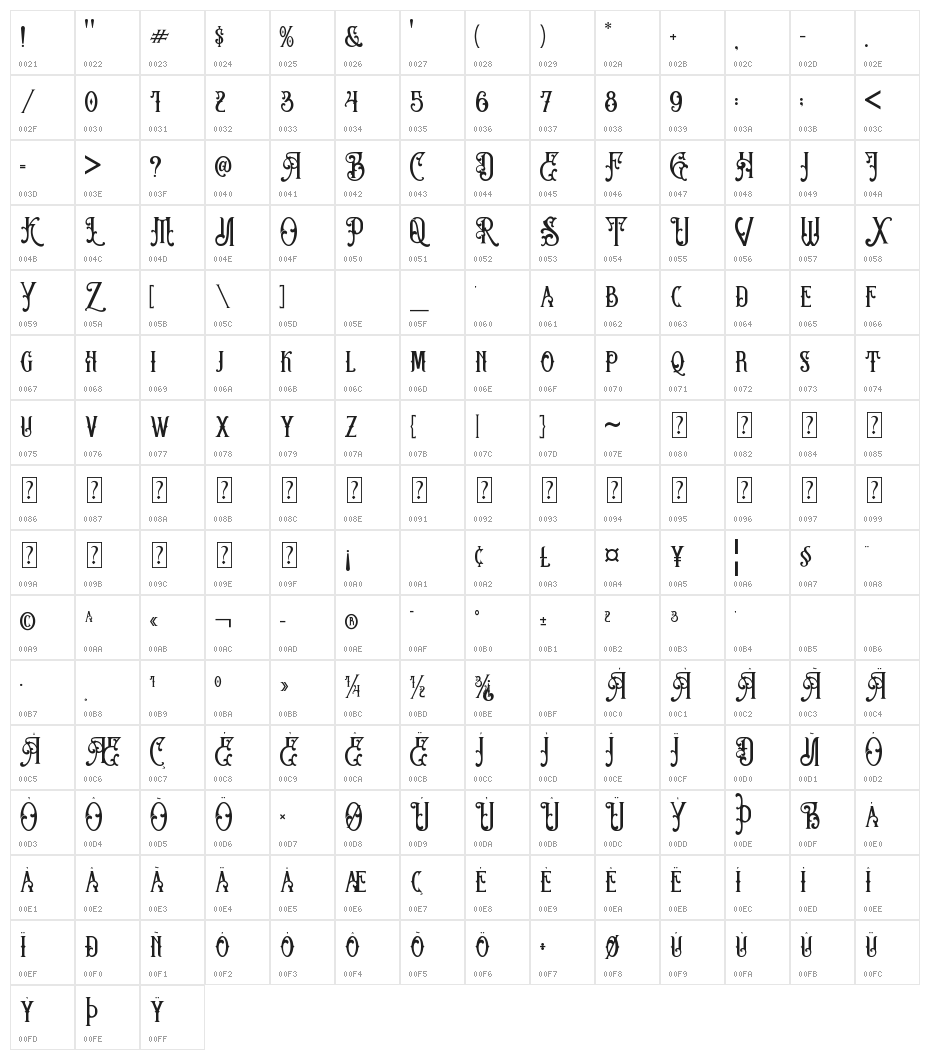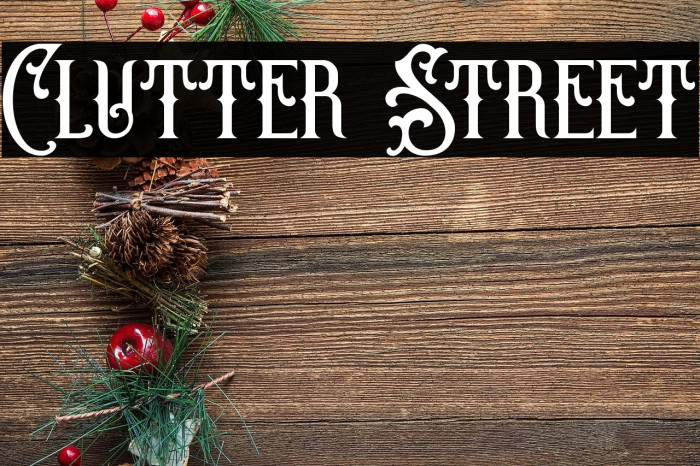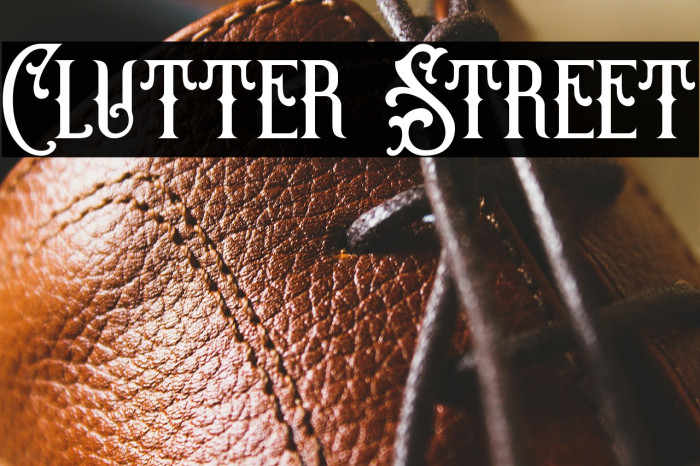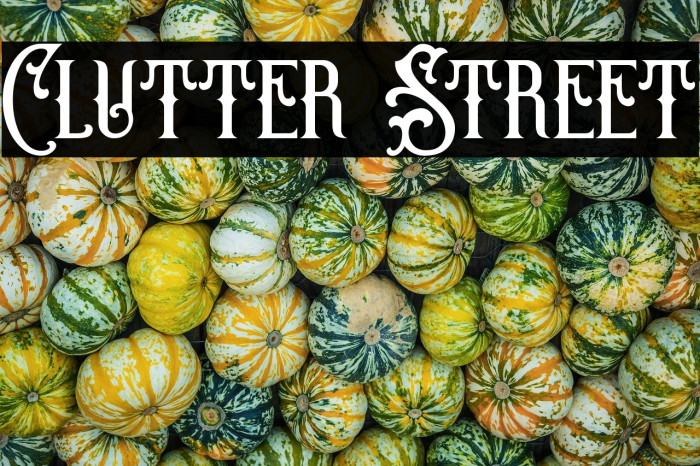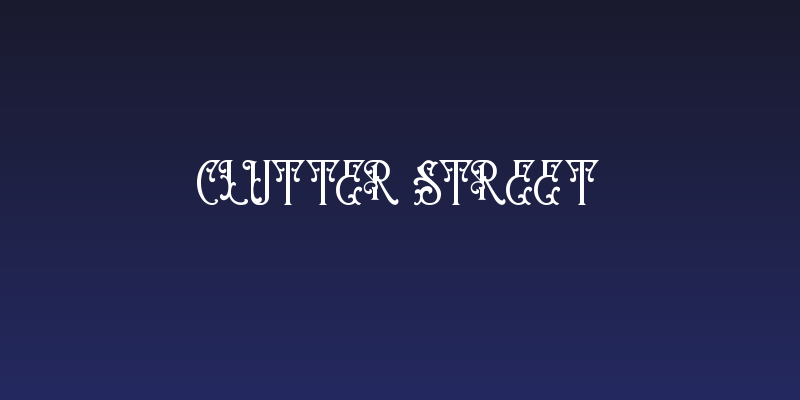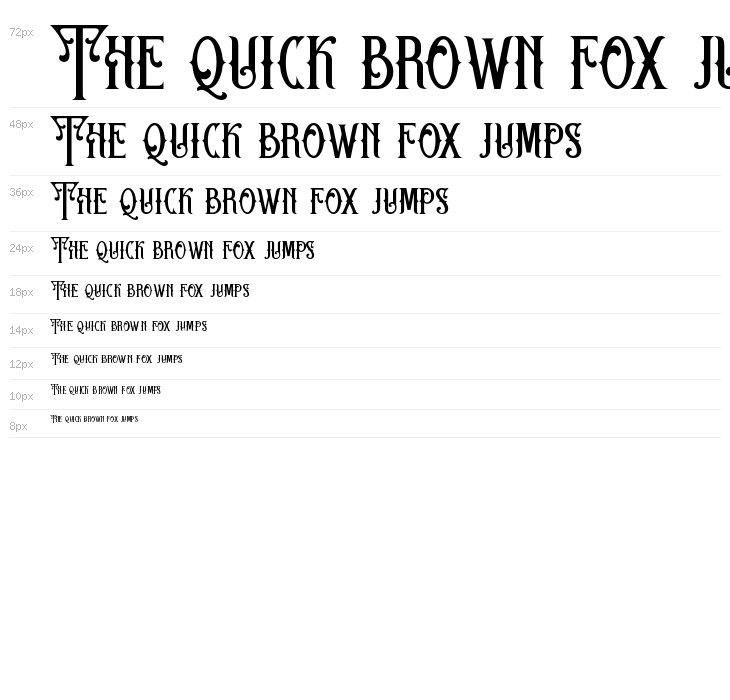
Clutter Street Font
Clutter Street Description
This font features a bold and decorative style with intricate detailing and flourishes that give it a unique, artistic flair. The uppercase letters are particularly ornate, with swirls and curves that add a sense of elegance and sophistication. The lowercase letters maintain a similar style, ensuring consistency throughout the typeface. Numbers and special characters are designed to match the overall aesthetic, making this font versatile for various creative applications. The boldness of the strokes and the decorative elements make it stand out, ideal for projects that require a strong visual impact.